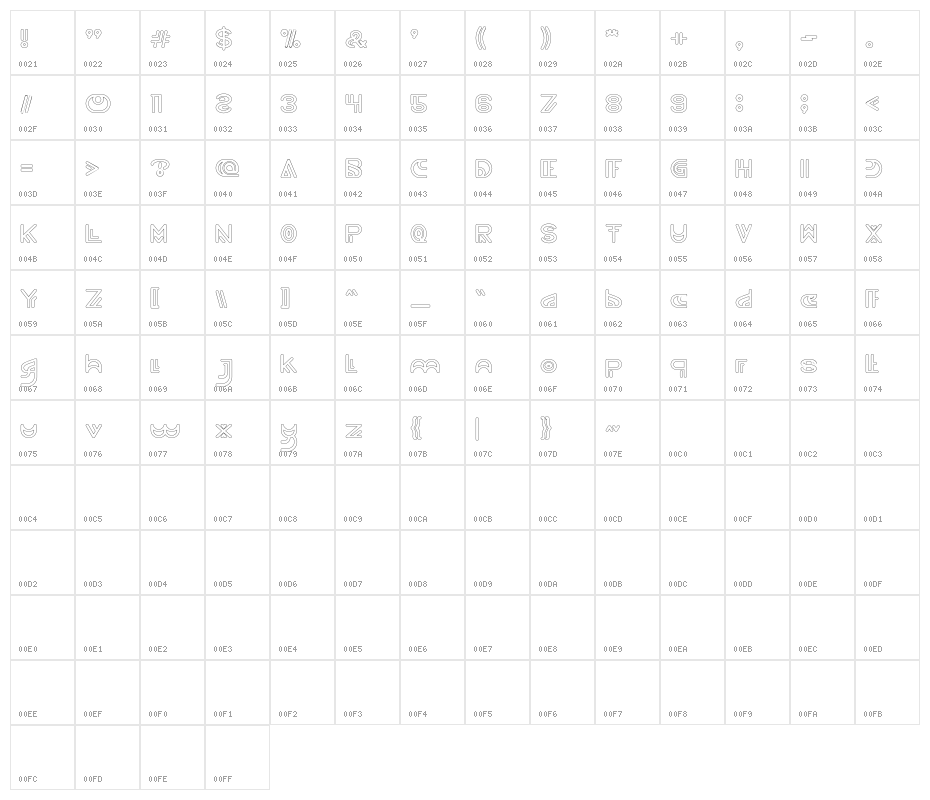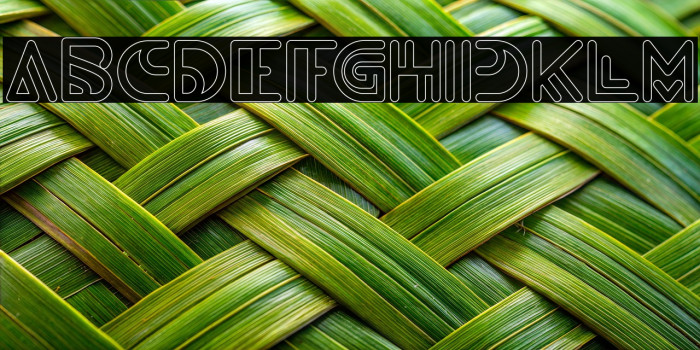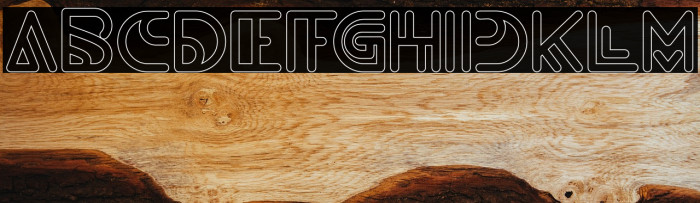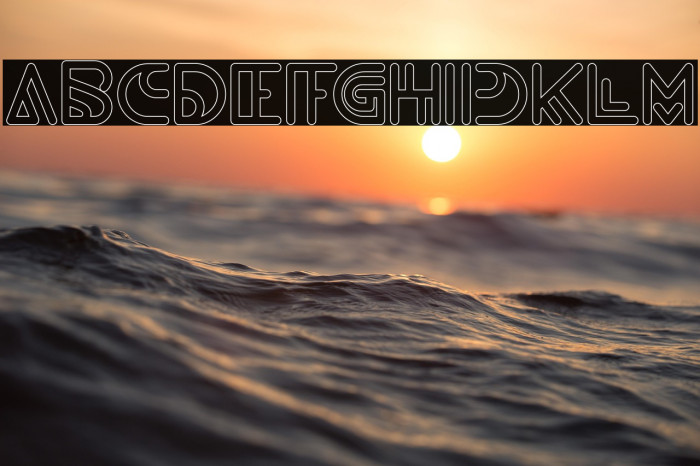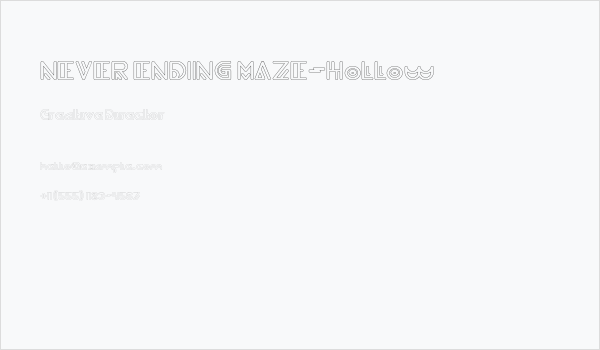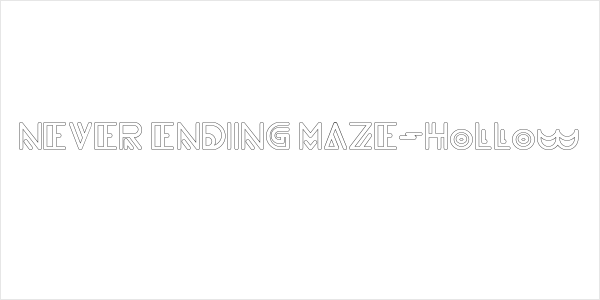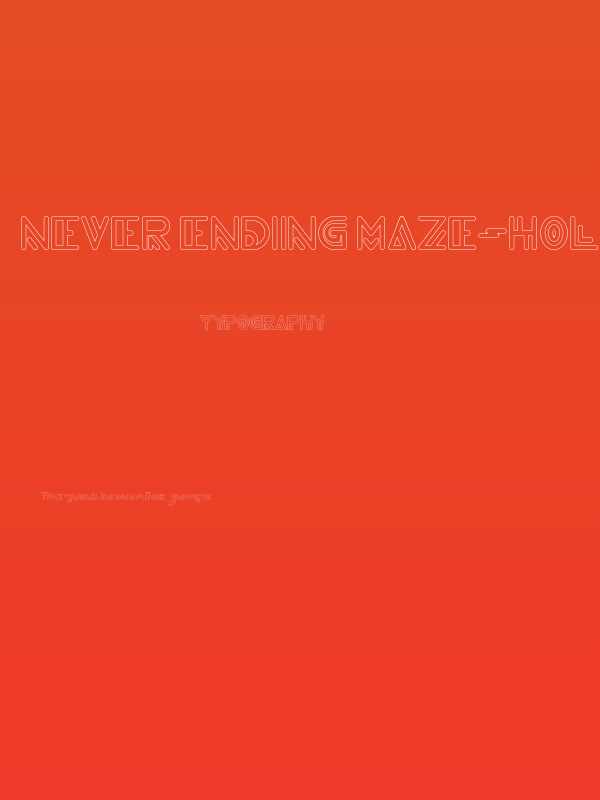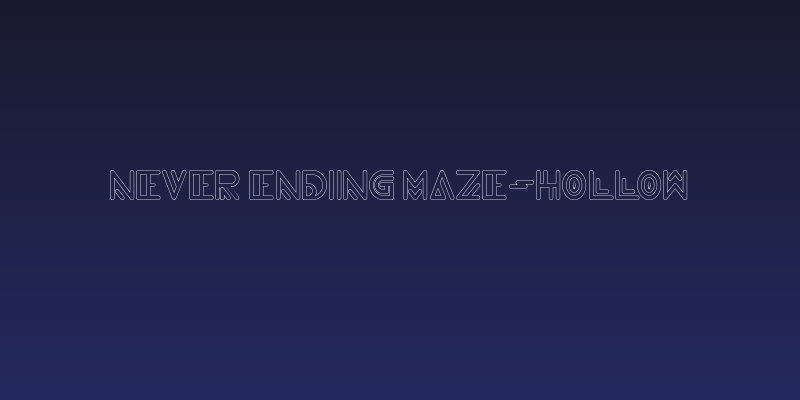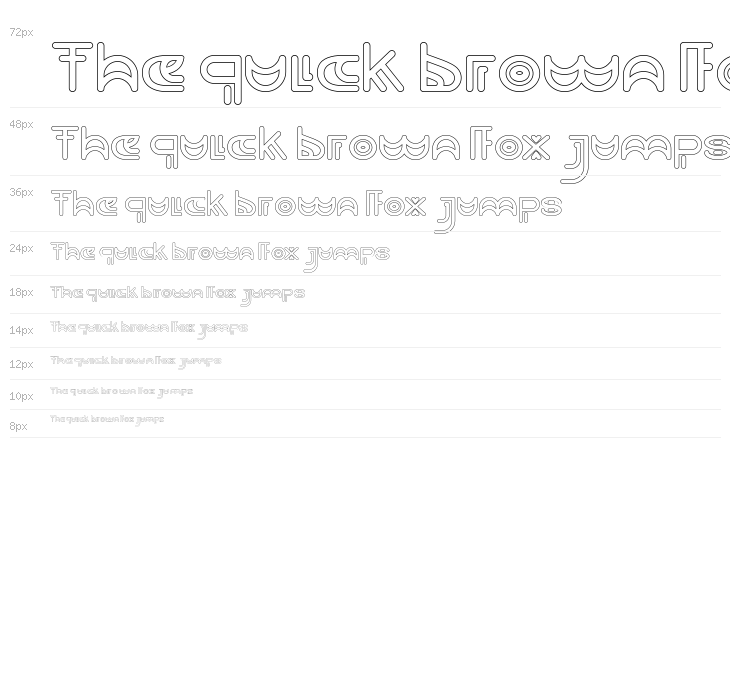
NEVER ENDING MAZE-Hollow Font
NEVER ENDING MAZE-Hollow Description
This font features a unique hollow design with a maze-like structure, giving it a futuristic and playful appearance. The characters are composed of continuous lines that form intricate patterns, creating a sense of depth and movement. The uppercase and lowercase letters maintain a consistent style, with rounded edges and geometric shapes. Numbers and special characters follow the same design principles, ensuring uniformity across all glyphs. This font stands out with its decorative and artistic flair, making it ideal for creative projects that require a bold visual impact.
| Proposed Projects | Ideal for posters, album covers, video game graphics, and branding that requires a modern and artistic touch. |